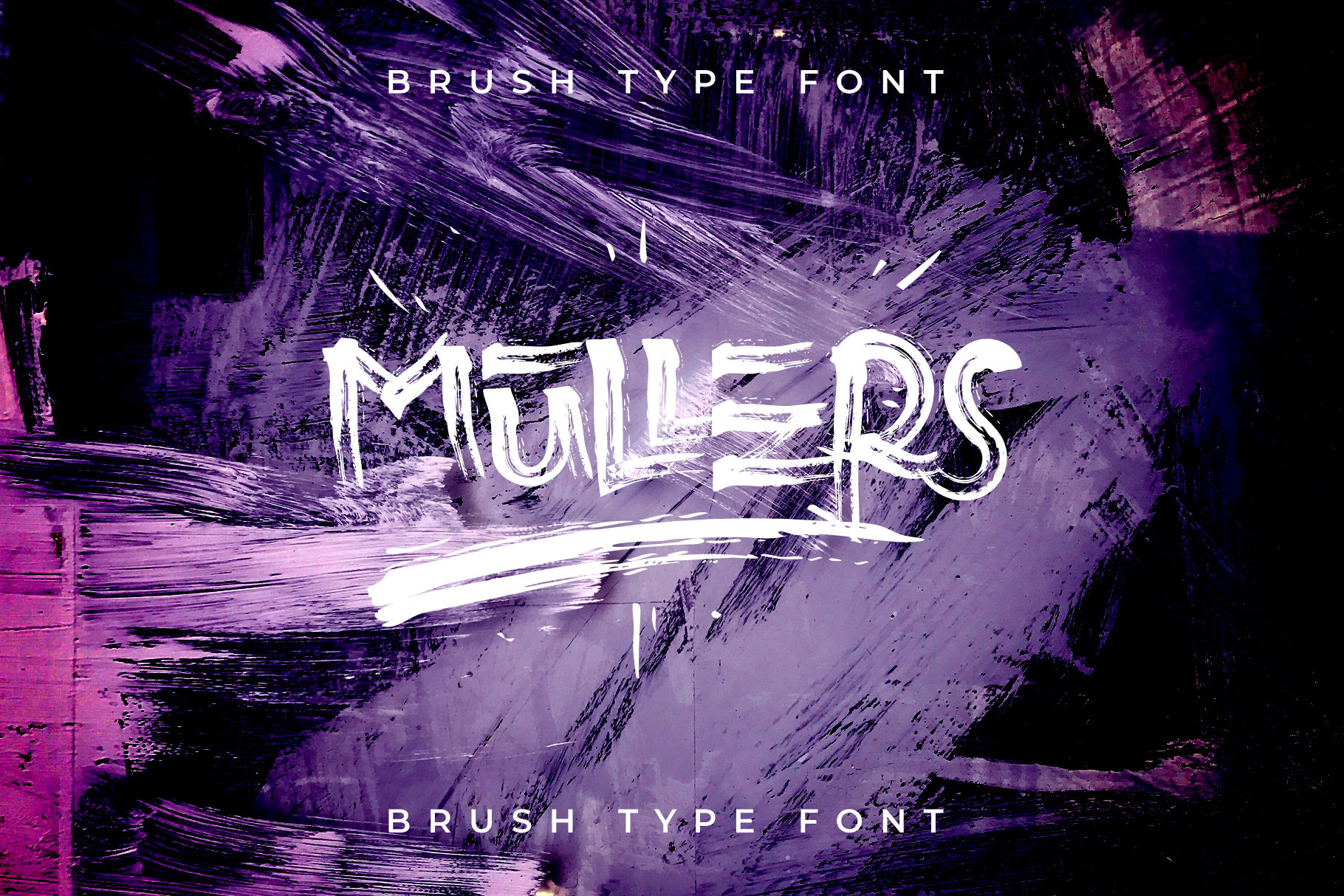
Introducing the Mullers Font Brush from our collection, crafted with care and imagination, this font's signature grainy texture with strokes and splashes is complemented by lowercase alternatives, and ligatures.
This font is perfect for challenging work, titles, t-shirts, websites, hoodies, and a variety of print and digital media. With extra attention to quick strokes and sharp detail, the Mullers Brusher is ideal for logos, apparel, quotes, product packaging, or anything else that needs a typography turbo-boost.